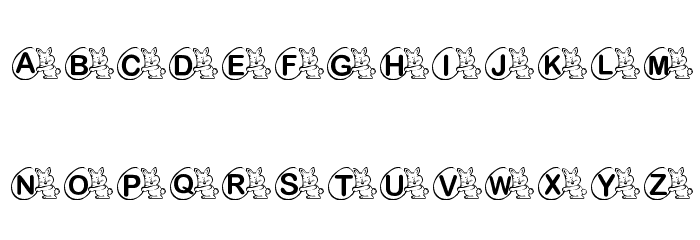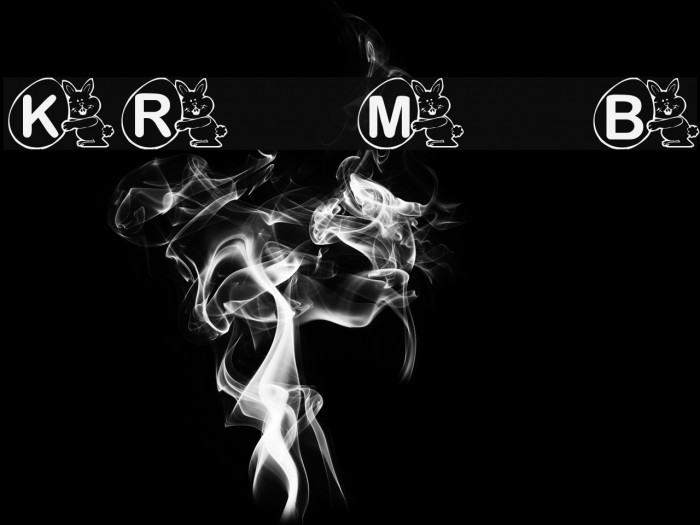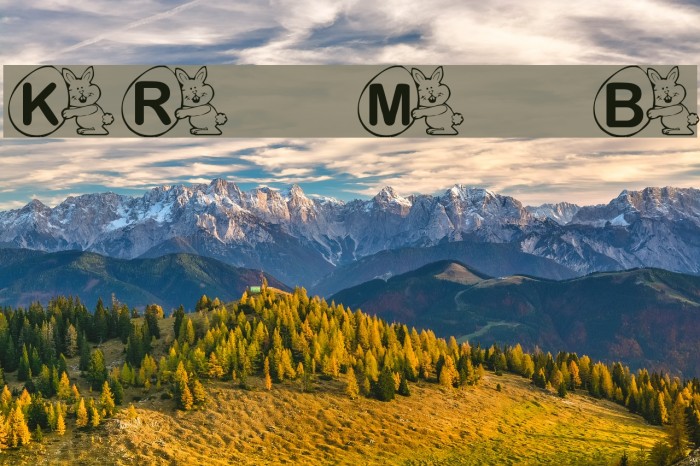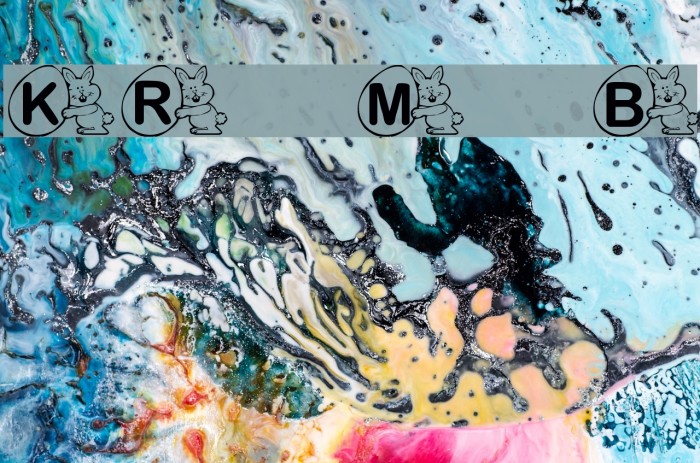
KR Mr. Bunny Font
This playful and whimsical font features each letter encased in a circle with a charming bunny illustration beside it. The letters are bold and uppercase, creating a strong visual impact. The bunnies add a delightful, childlike element, making the font ideal for projects aimed at younger audiences or those seeking a fun, lighthearted aesthetic. The consistent use of circles around each letter provides a uniform appearance, while the bunny illustrations introduce a unique and decorative touch.
A playful font with bold letters encased in circles, accompanied by bunny illustrations.
- Proposed Projects: Ideal for children's books, playful branding, Easter-themed designs, and educational materials.
- Overall Style: Playful, Whimsical
- Use Case: Headlines, Logos, Decorative Text